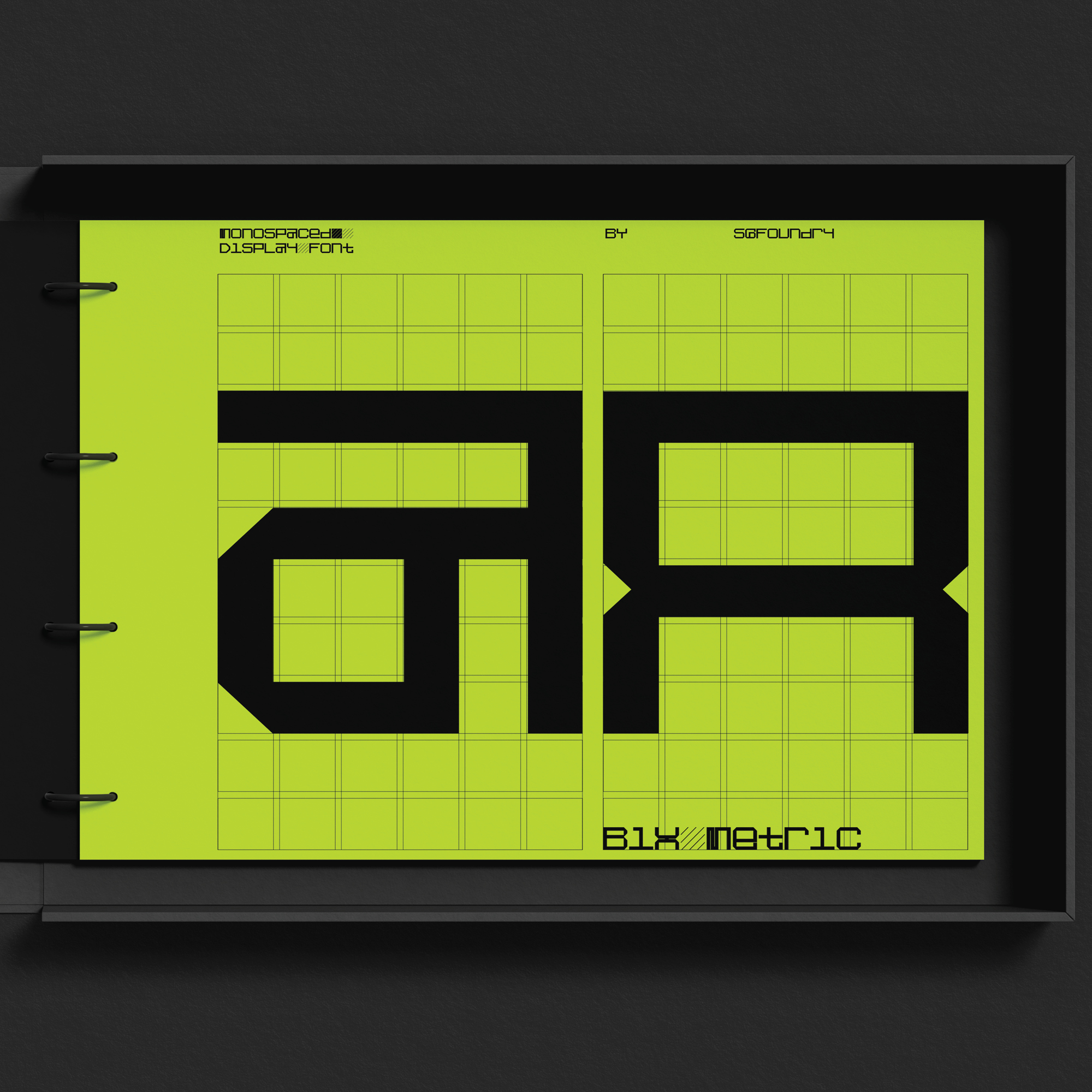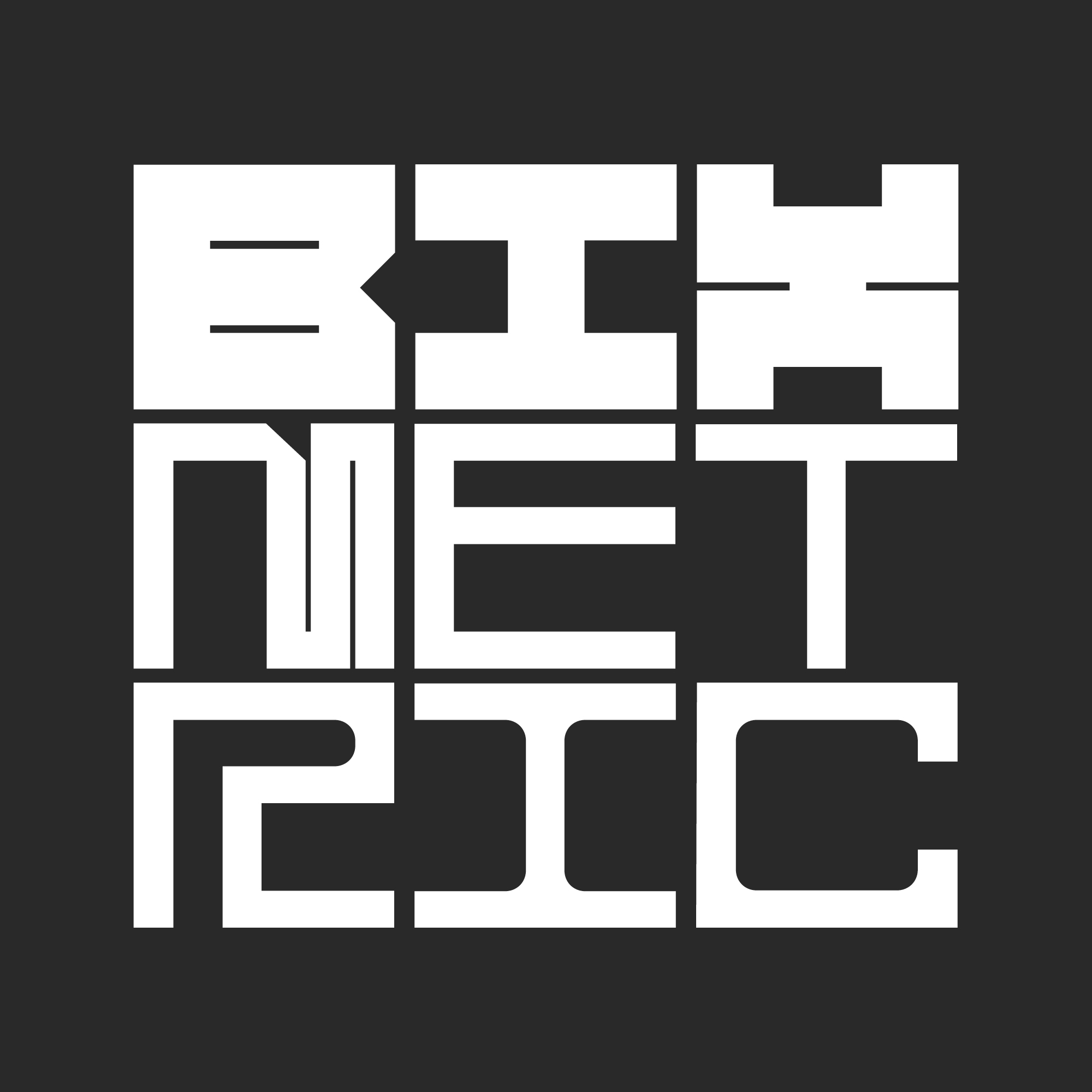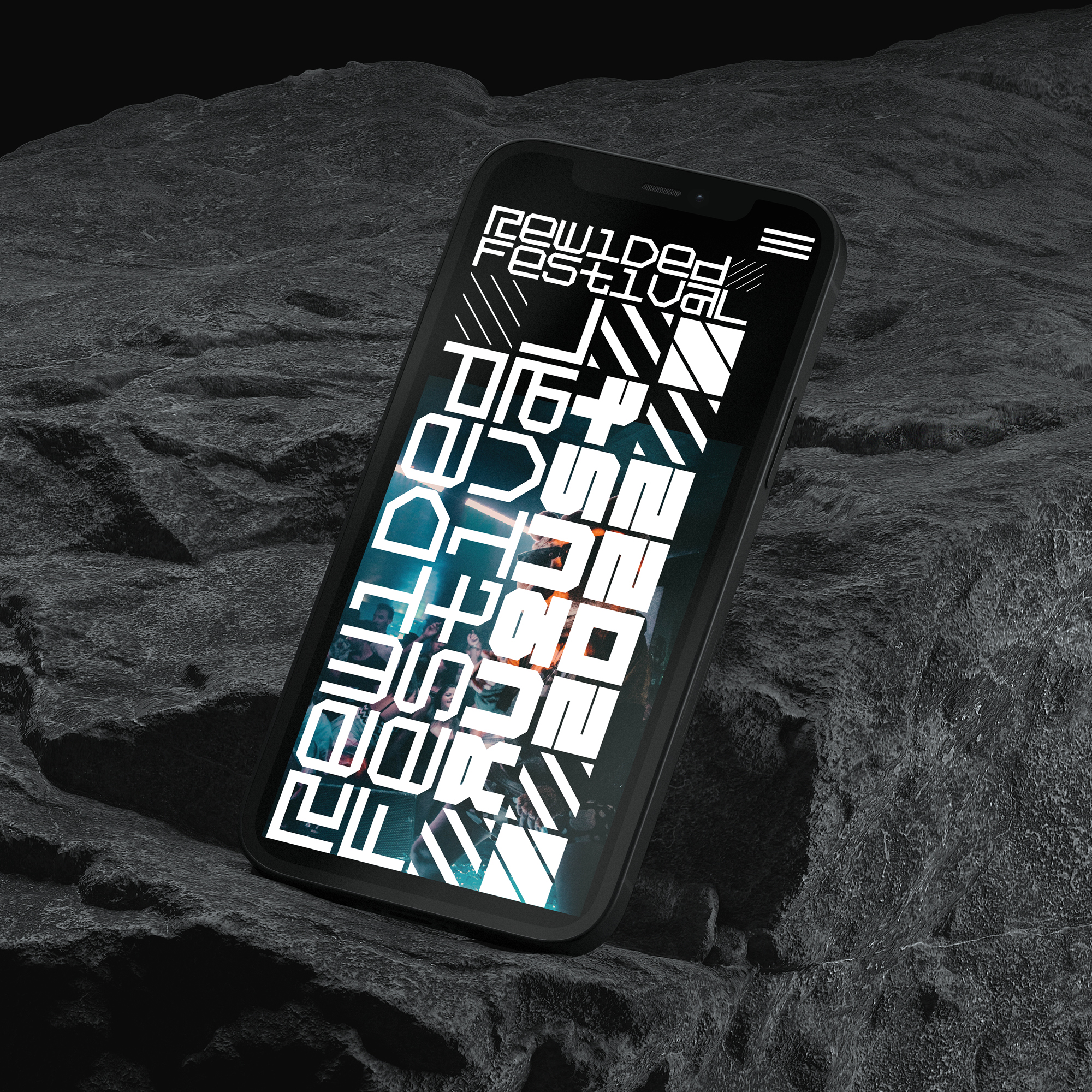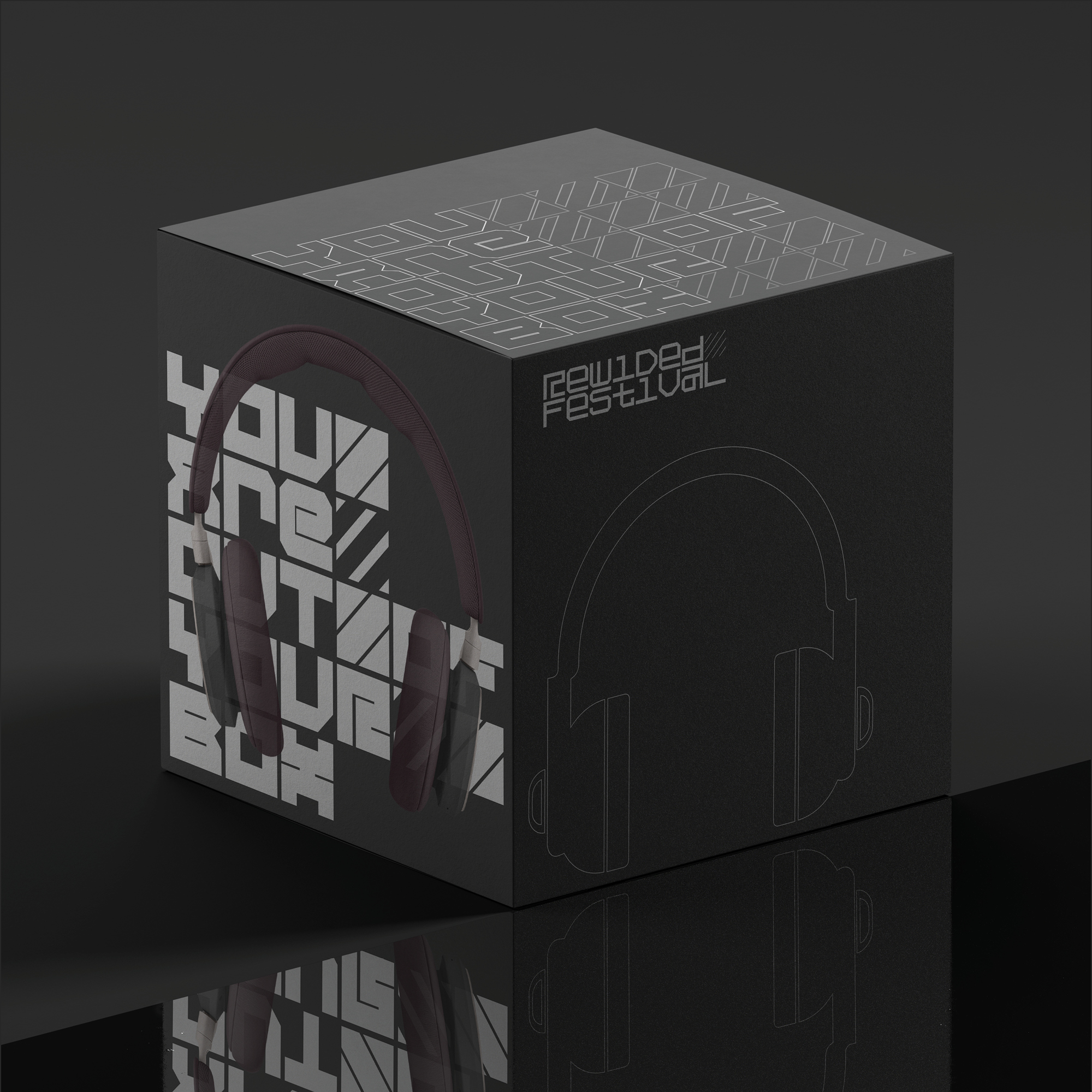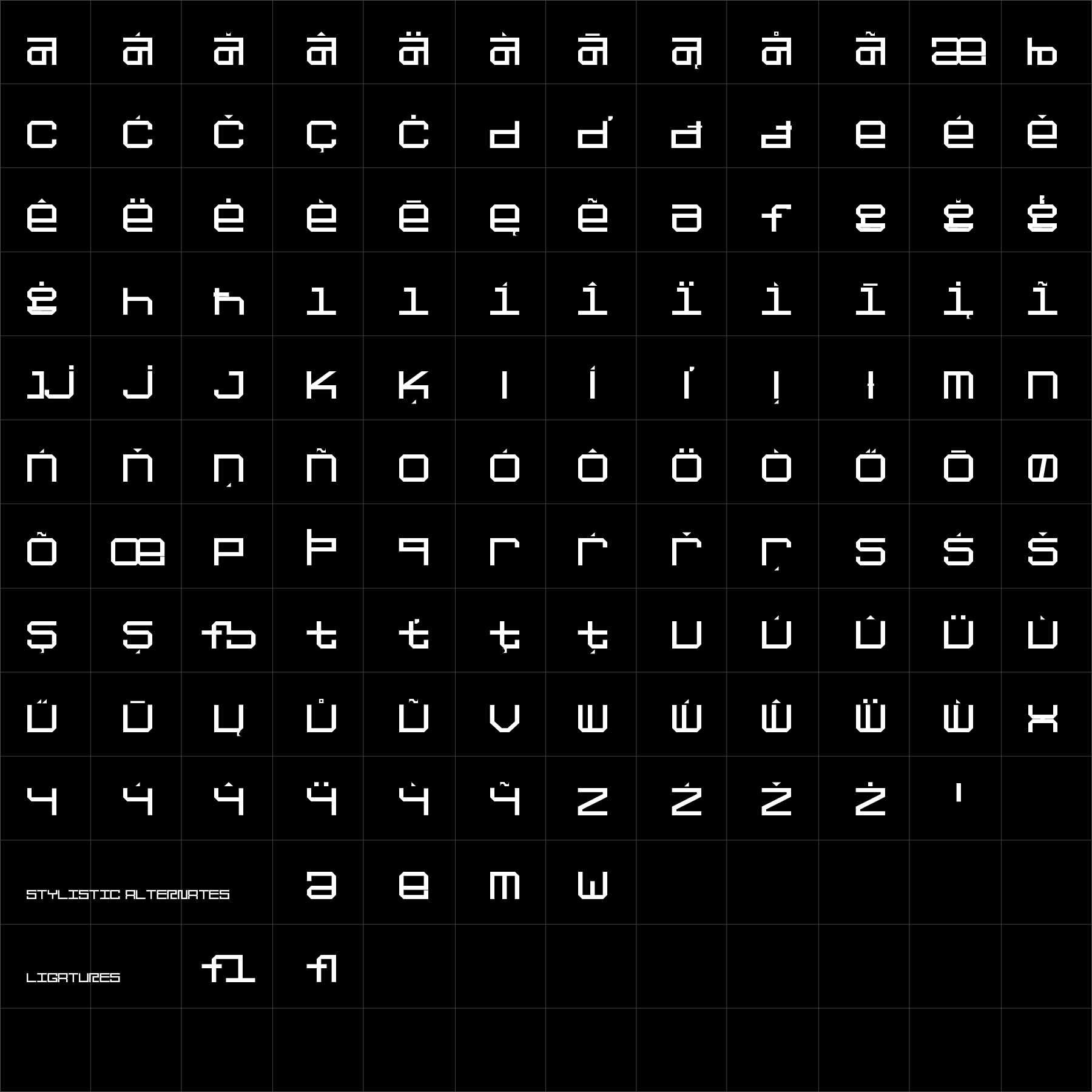
Bix Metric
Modular Display Typeface
Bix Metric is an experimental display typeface built around modular geometry, sharp construction and strong graphic rhythm. Its systematic forms combine structural precision with unconventional details, creating an immediate and recognisable visual presence.
Designed for expressive compositions where typography becomes a dominant graphic element, Bix Metric is particularly effective across identities, posters, editorial titles, cultural projects and motion graphics.